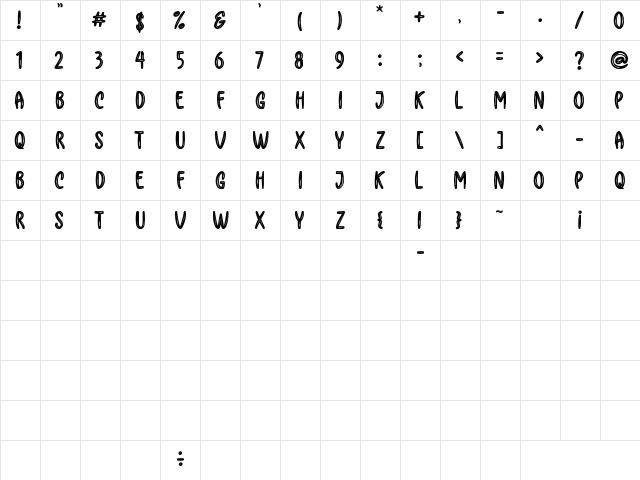
Helga Brush Regular
Helga Brush flows with the natural rhythm of handwritten lettering, making it ideal for designs that call for warmth and personal expression.
Font Pairing: Combine Helga Brush with a simple geometric sans for maximum contrast — the tension between flowing curves and clean structure is a classic typographic pairing.
Pro Tip: Use Helga Brush for short runs of text — names, titles, or taglines. Extended body copy in script faces tires the eye quickly.